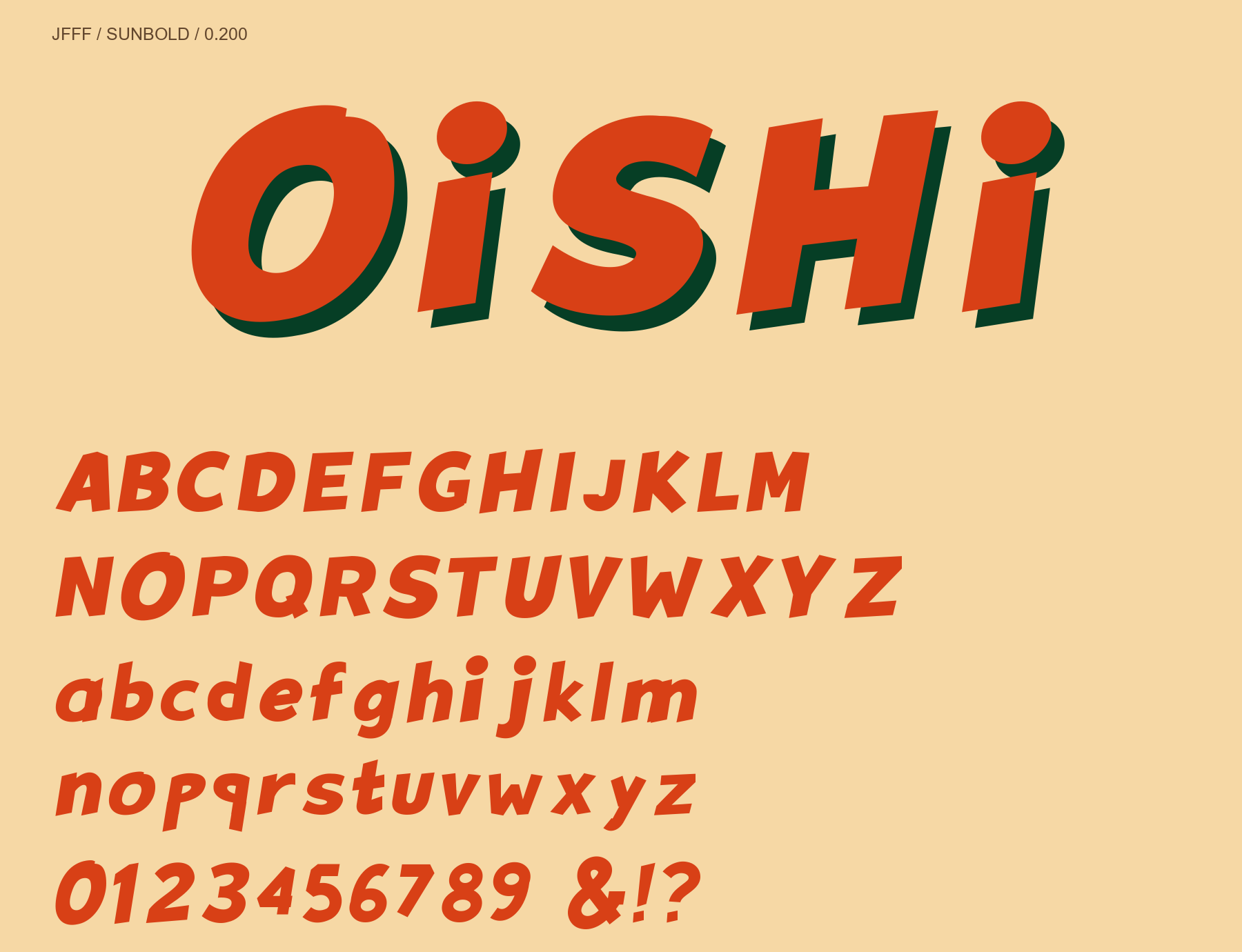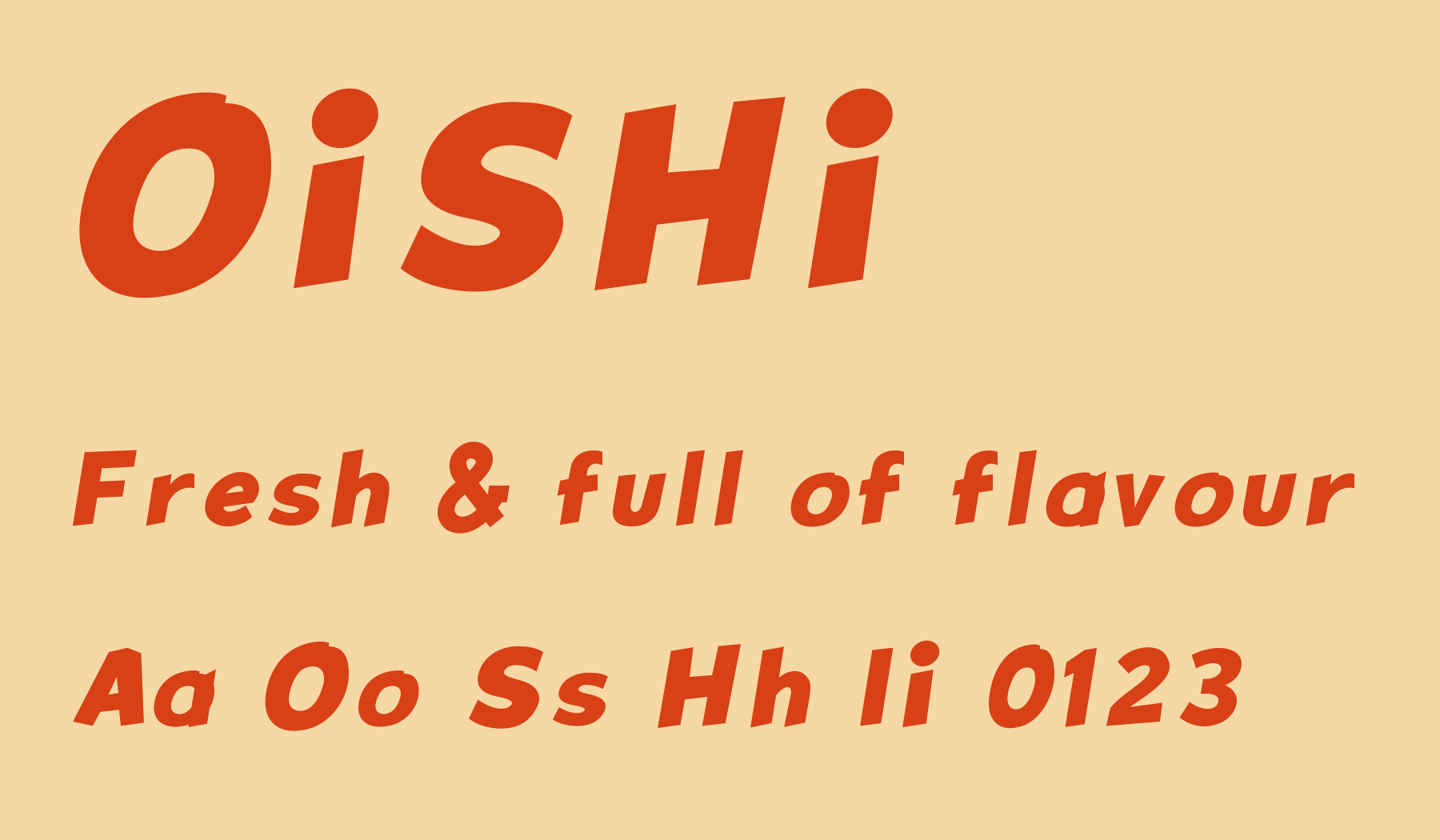
Sunbold cartoon display font: uppercase, lowercase and figures. The green shadow is an artwork effect.
Sunbold is a bold cartoon display face with chubby curves, asymmetric proportions and slanted stroke endings. A large O, full S and big dots on i and j give it a cheerful feel. Version 0.200, Regular. 330 characters including spaces: uppercase, lowercase, figures, symbols, accents and Latin Extended. No Hangul. TTF and WOFF2 in one ZIP, free under SIL OFL 1.1. The green shadow and colors on the cover are artwork; the font itself is single-color. Made for titles and posters at large sizes. Character count and basic Latin coverage were checked; full OS, browser and character-combination QA is not complete.